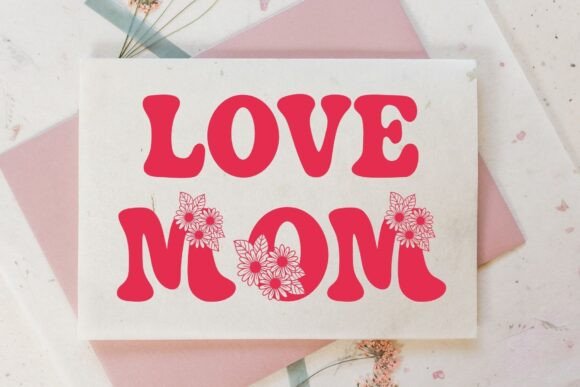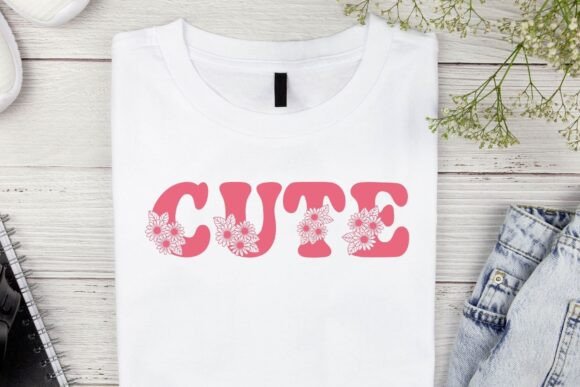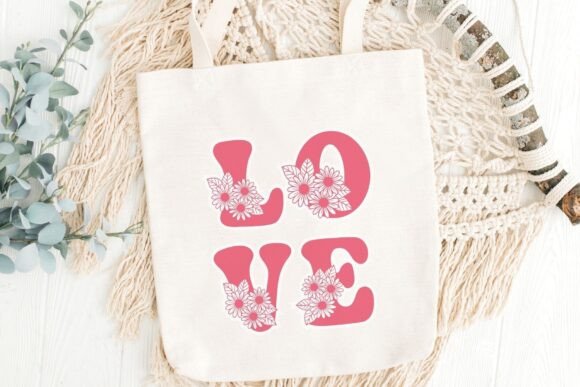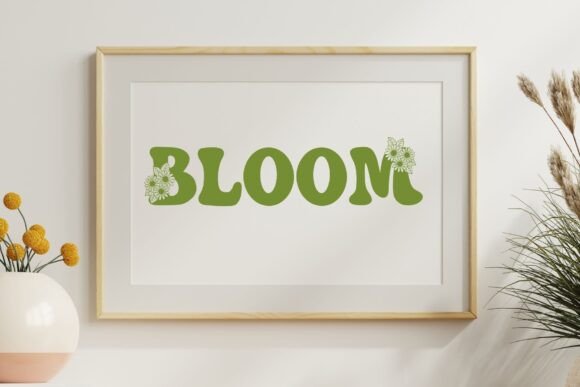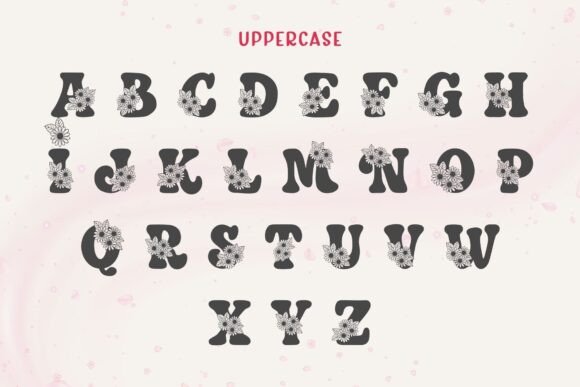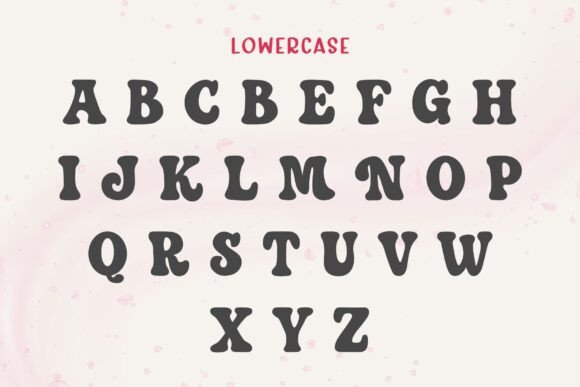
Introduction to Daisi Font Font
Fonts play a crucial role in design, and the Daisi Font font is a typeface that brings both character and versatility to any project. Whether you’re working on a branding project, a website, or a print design, the Daisi Font font offers a unique style that can elevate your work.
Daisi is a bold and decorative display font inspired by the charm of daisy flowers and the cheerful vibes of spring.
Each letter is beautifully adorned with hand-drawn floral elements, making it perfect for wedding invitations, spring-themed branding, retro-inspired projects, and playful packaging designs .
Key Features of Daisi Font Font
Why Choose Daisi Font Font?
The Daisi Font font is more than just a typeface – it’s a design tool that helps you communicate your message with style and clarity. Its unique character set and versatile design make it suitable for a wide range of applications, from elegant invitations to bold headlines.
With its carefully crafted letterforms and balanced proportions, the Daisi Font font ensures readability and visual appeal across all mediums.
What makes Daisi Font font special?
The Daisi Font font stands out with its unique design, exceptional readability, and versatility across various design applications.